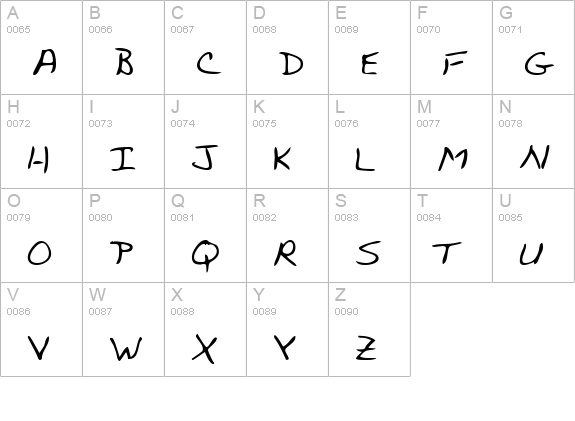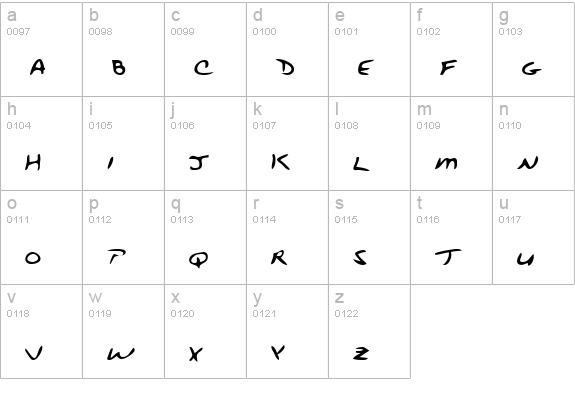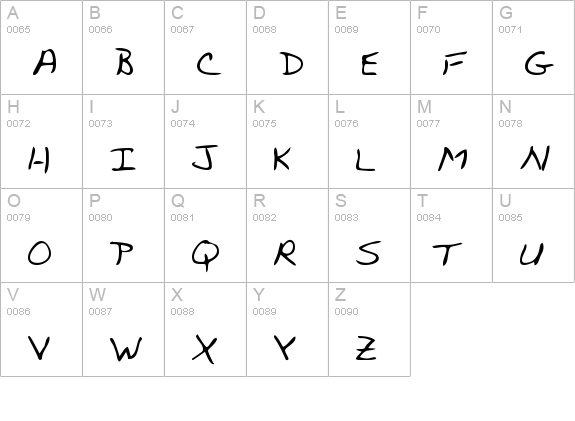
ToddsHand Regular Font Details
ToddsHand Regular is the standard, neutral variant in the ToddsHand typeface family \xE2\x80\x94 well suited to general body text, paragraphs, and standard typographic work.
ToddsHand Regular font is a delightful and versatile typeface that exudes a sense of creativity and playfulness. With its hand-drawn aesthetic and charming imperfections, this font adds a unique and personal touch to any project. Featuring a well-balanced combination of smooth curves and expressive strokes, ToddsHand Regular is perfect for a wide range of design purposes. Whether you're creating a logo, designing a poster, or crafting a greeting card, this font will effortlessly bring your ideas to life. What sets ToddsHand Regular apart is not only its captivating design, but also its accessibility. This font is available for free, allowing anyone to easily enhance their designs without breaking the bank. Simply visit FontsMarket.com to download ToddsHand Regular and start incorporating its whimsical charm into your projects. With its wide language support and extensive character set, ToddsHand Regular is suitable for various languages and can be utilized across different platforms. Its versatility makes it an ideal choice for designers, artists, and creatives who are looking to add a touch of character and warmth to their work. Whether you're aiming for a playful and lighthearted tone or a more handcrafted and organic feel, ToddsHand Regular font is the perfect choice. Download it for free today at FontsMarket.com and unlock endless possibilities for your design projects.